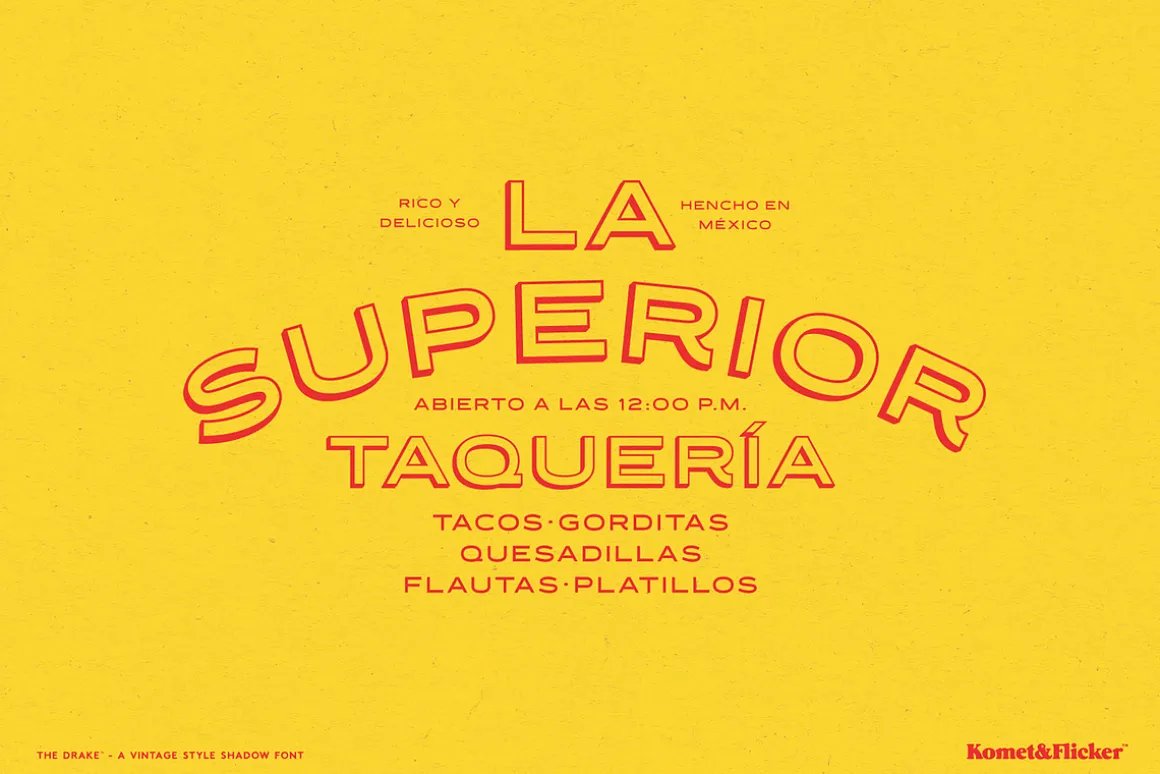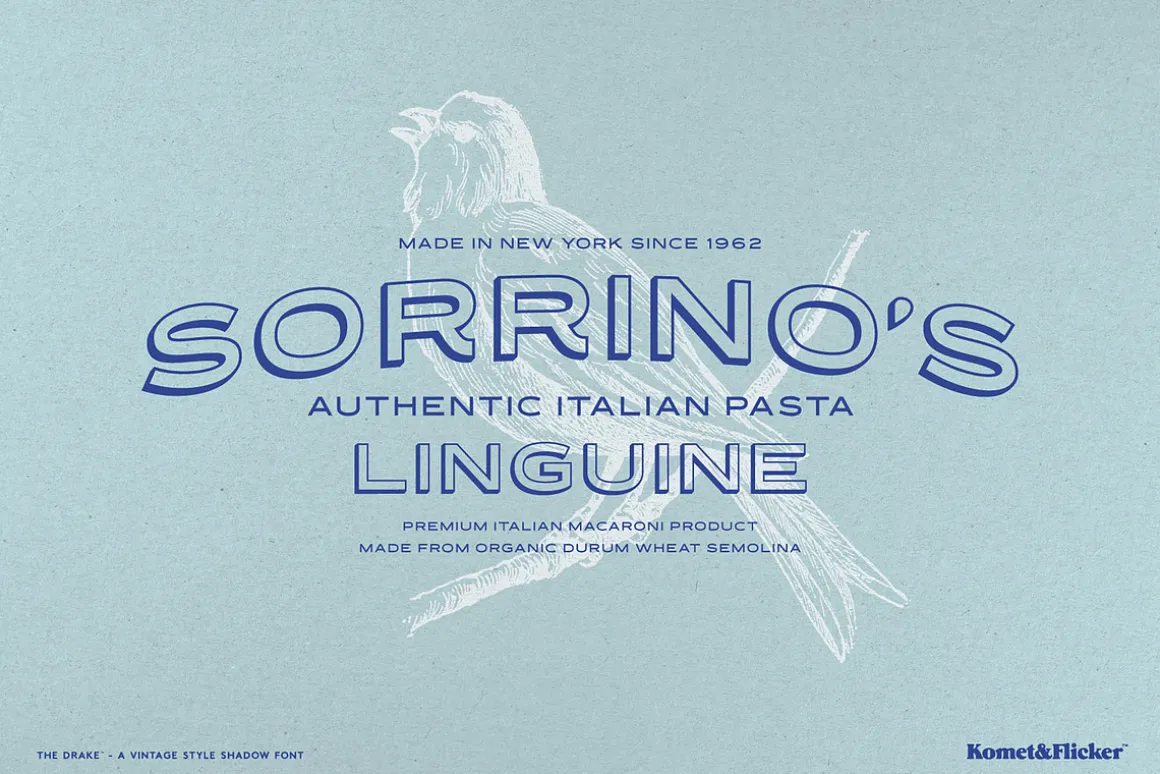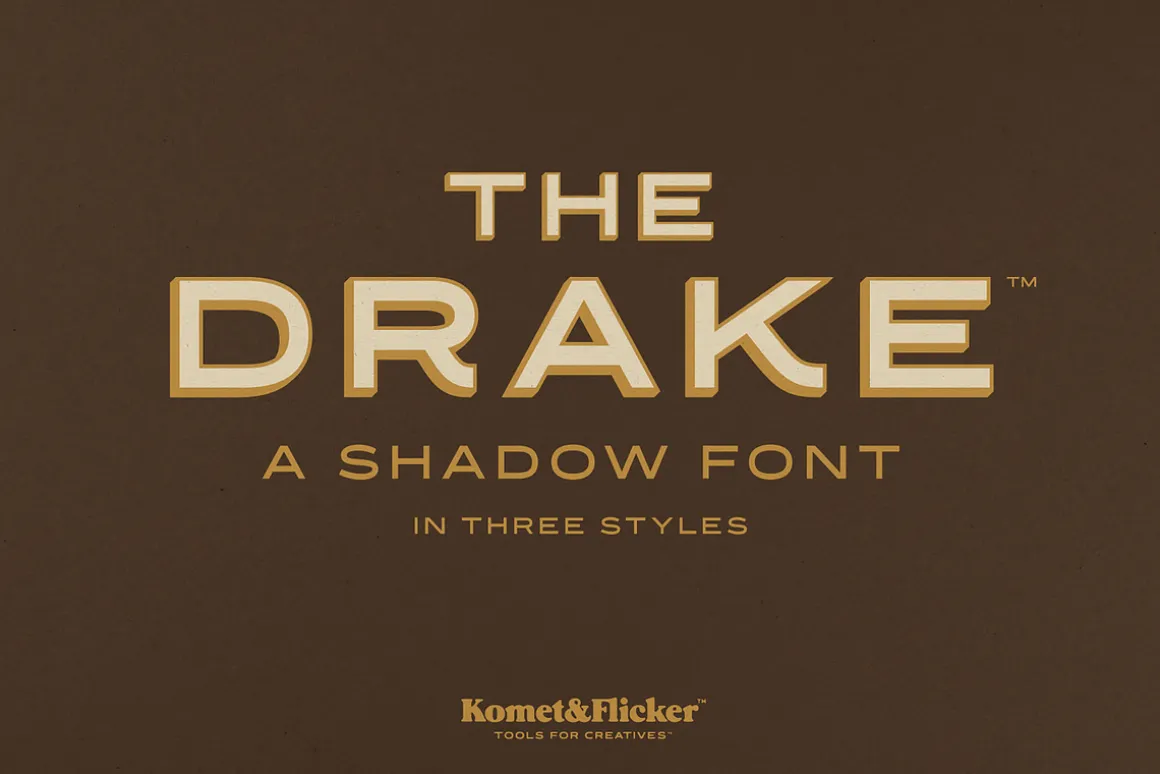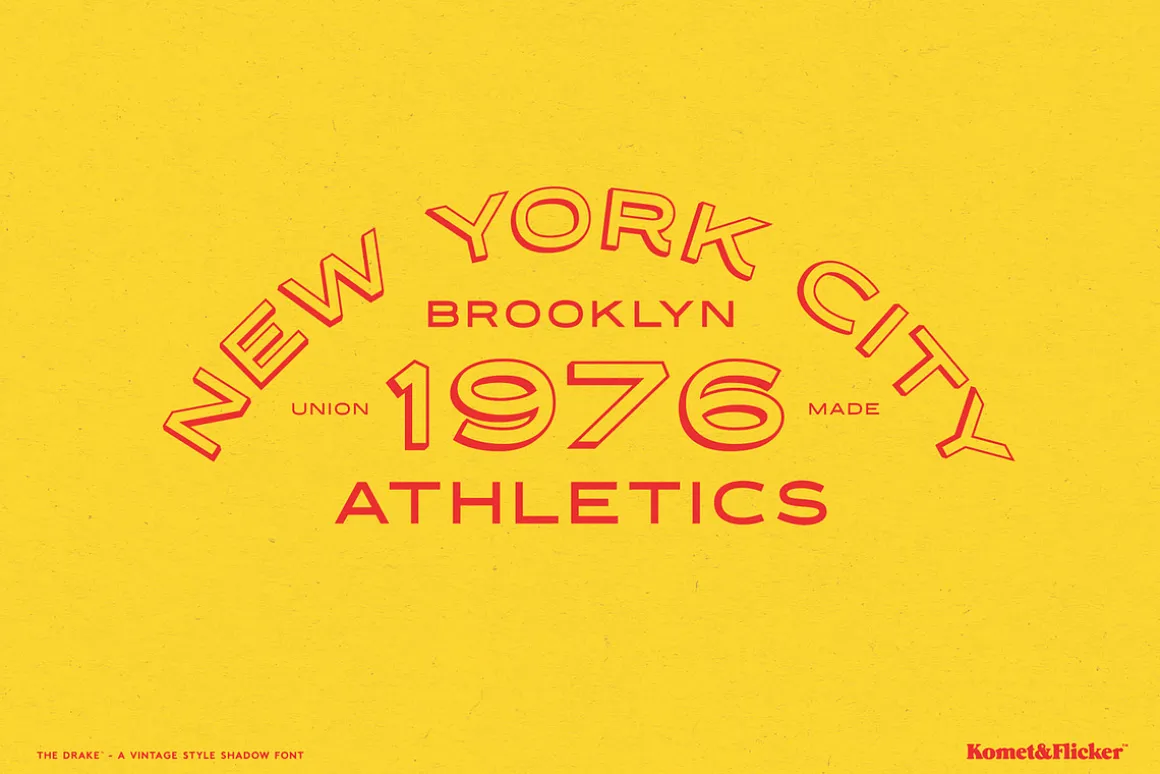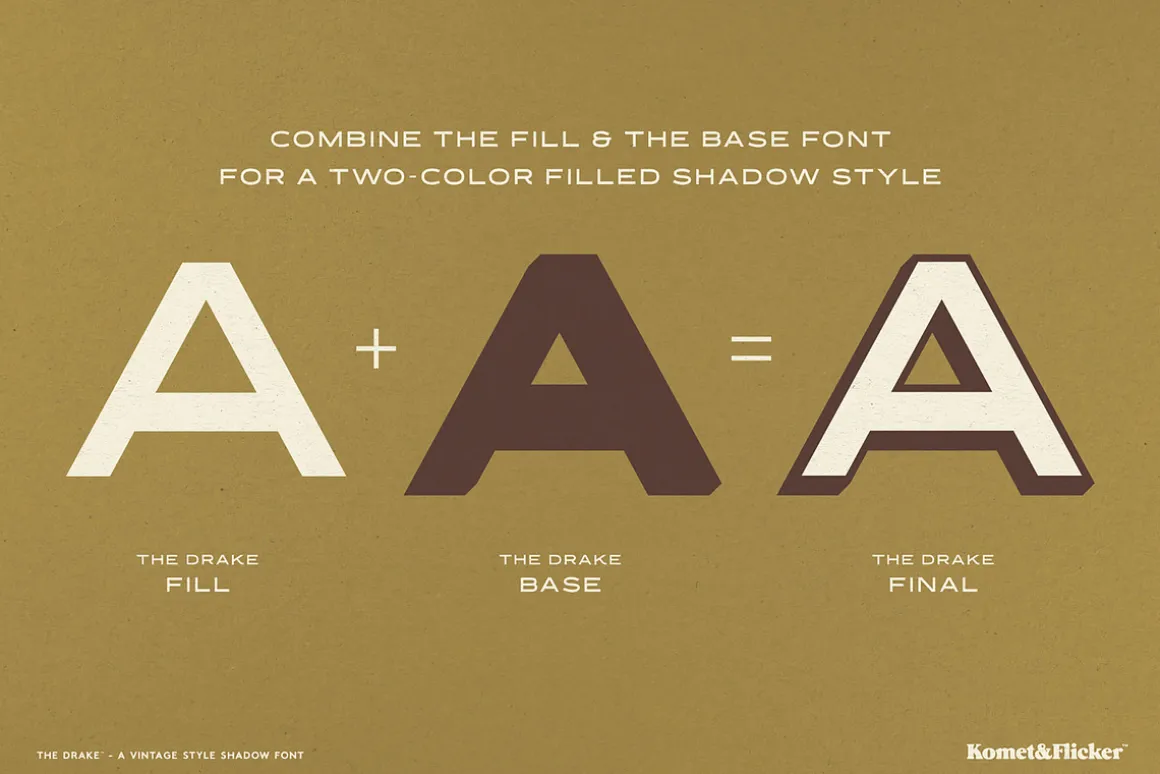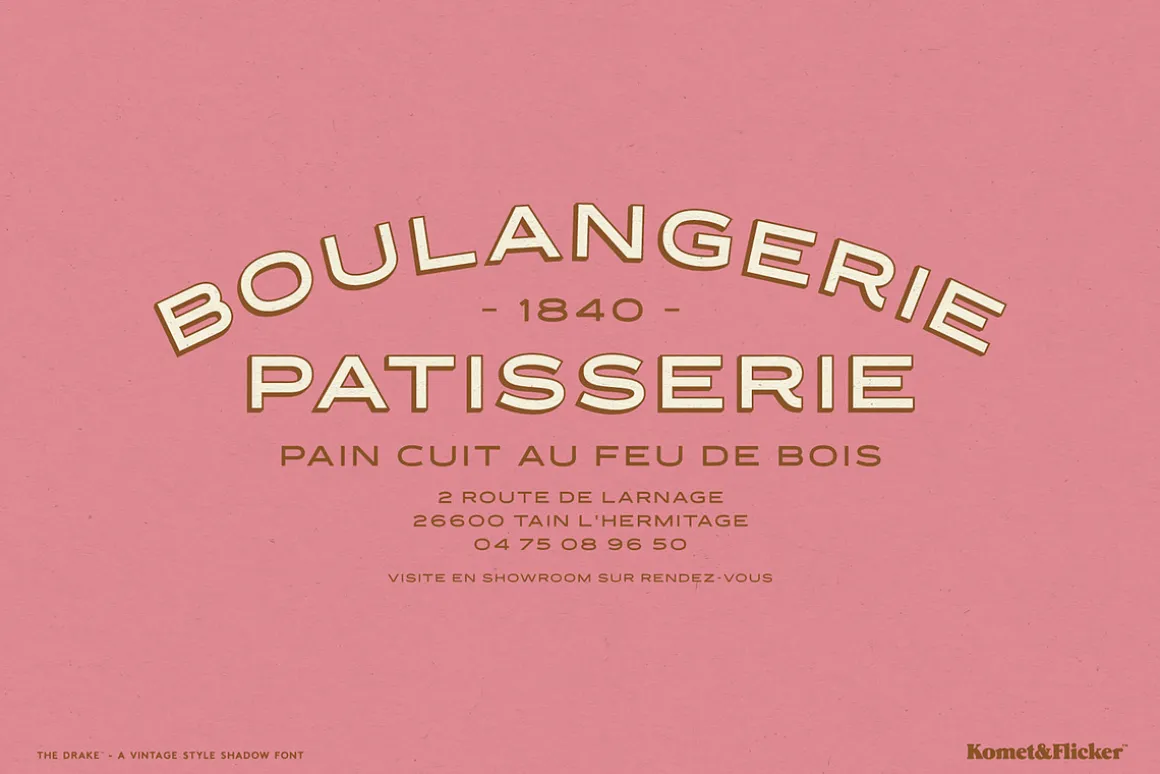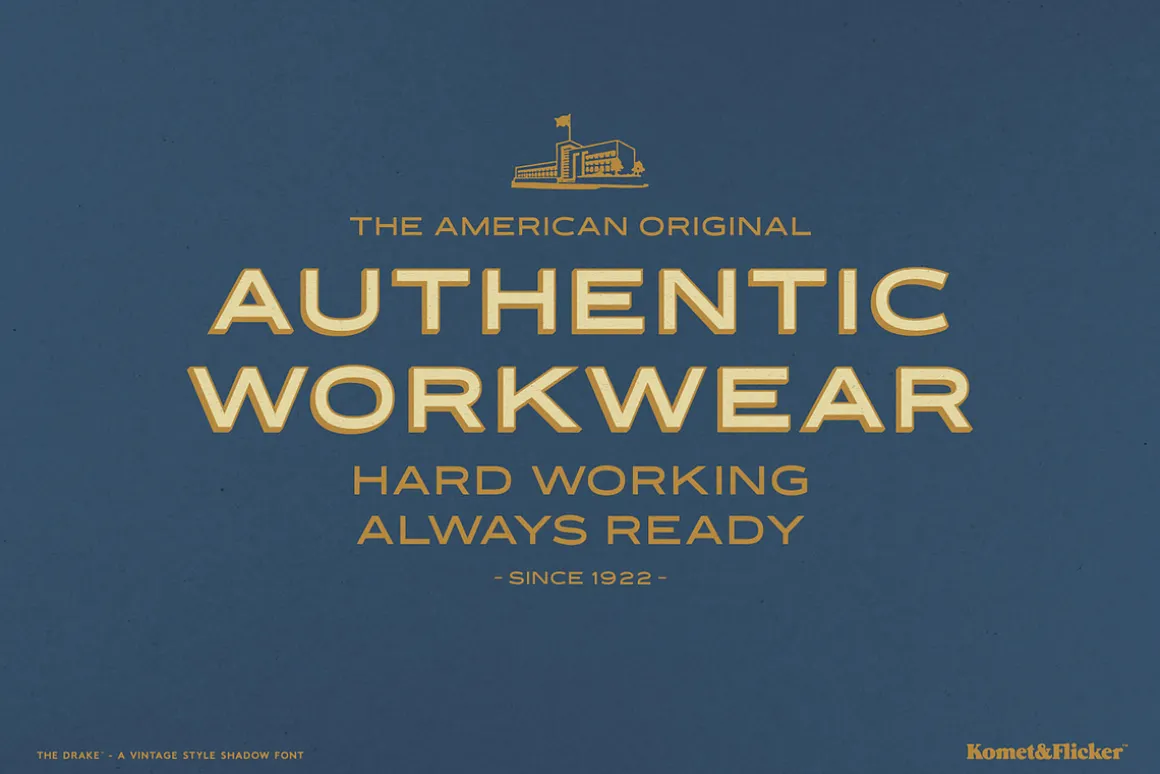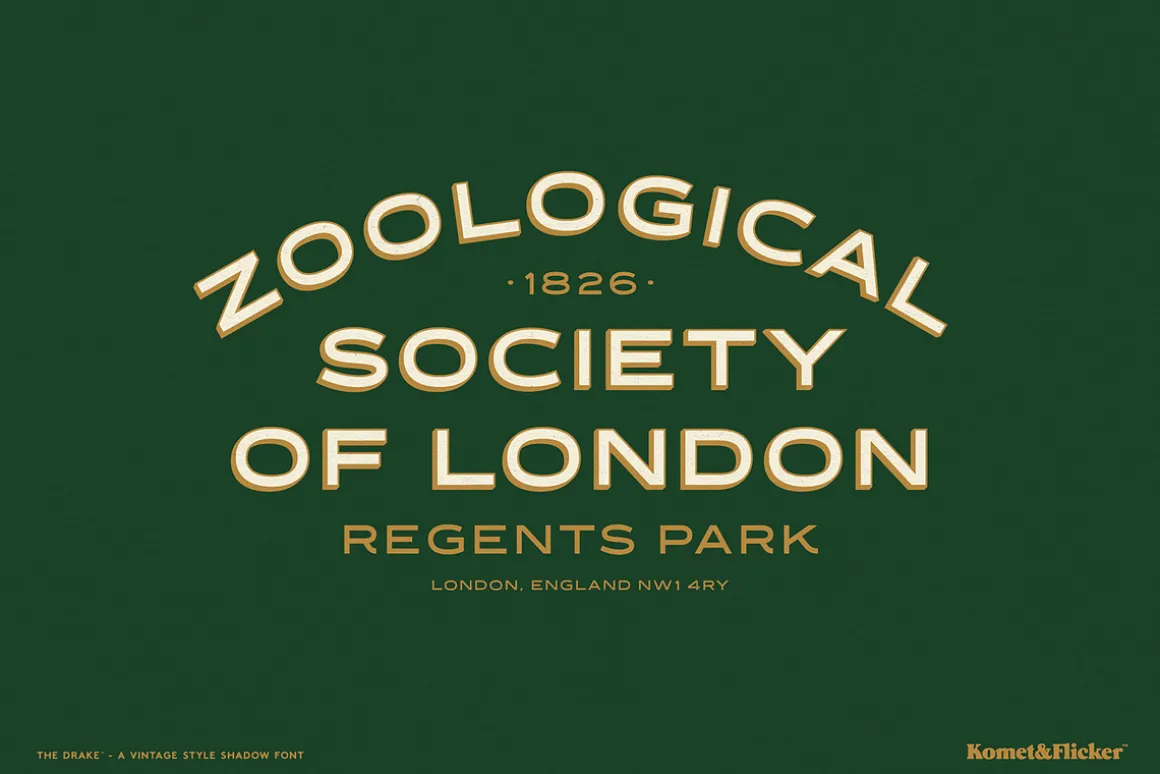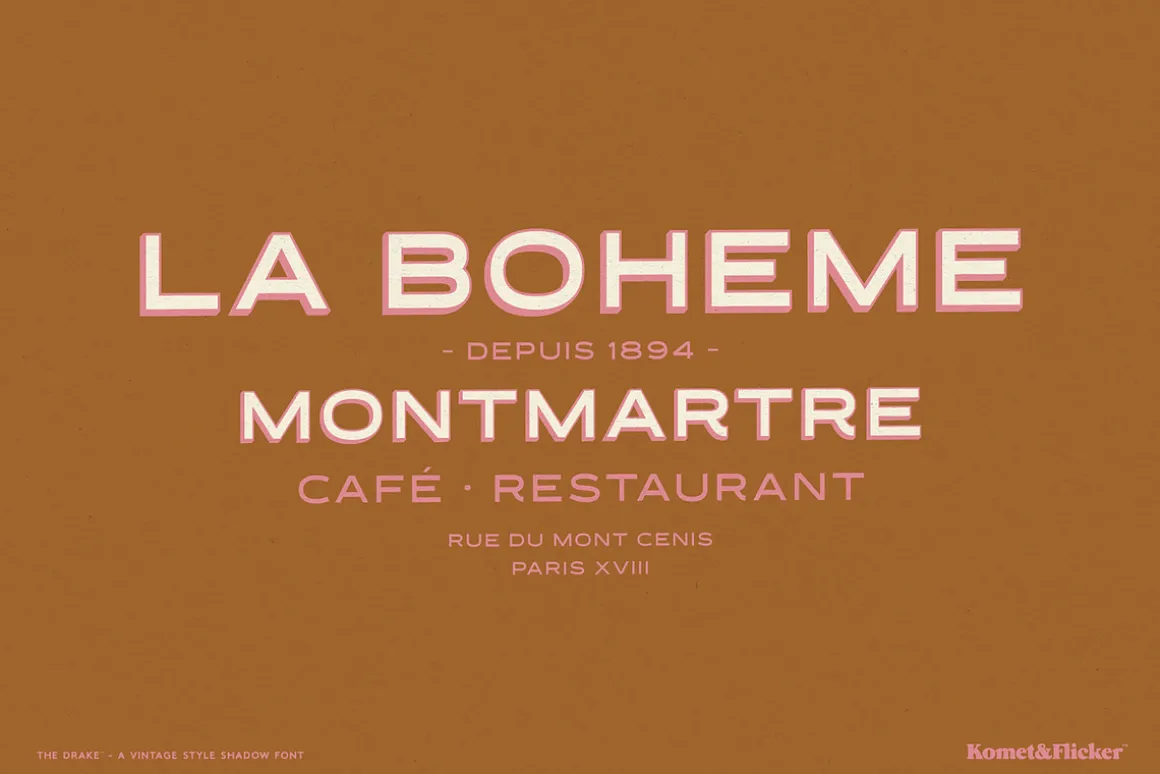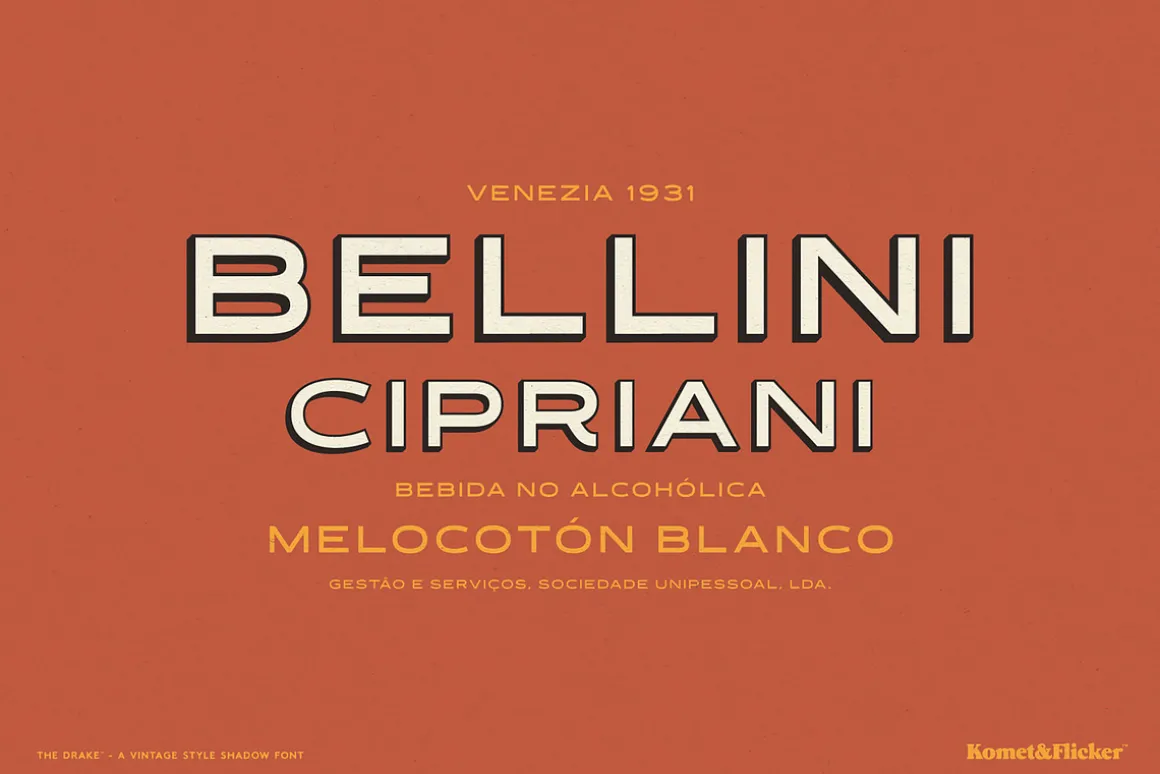
The Drake is an elegant sans serif typeface inspired by vintage French signage – the kind of hand-painted lettering you’d find on an old cafe awning or shopfront window. The Drake blends that nostalgic charm with clean, modern versatility.
This family comes in three styles: Base, Fill, and Shadow. Layer the Base and Fill together and they combine into a bold two-color shadow effect – ideal for eye-catching headlines, packaging, and signage with real vintage flair. The Shadow version works great on it’s own as does the Fill version.
Whether you’re branding a café, designing a menu, or capturing that timeless Parisian storefront look, The Drake adds warmth and character to every project.
Full A-Z uppercase latin character set
Select European specific characters
Includes alternate characters for K, R, and Q
Pre-made common fractions
Numbers, punctuation, and select symbols